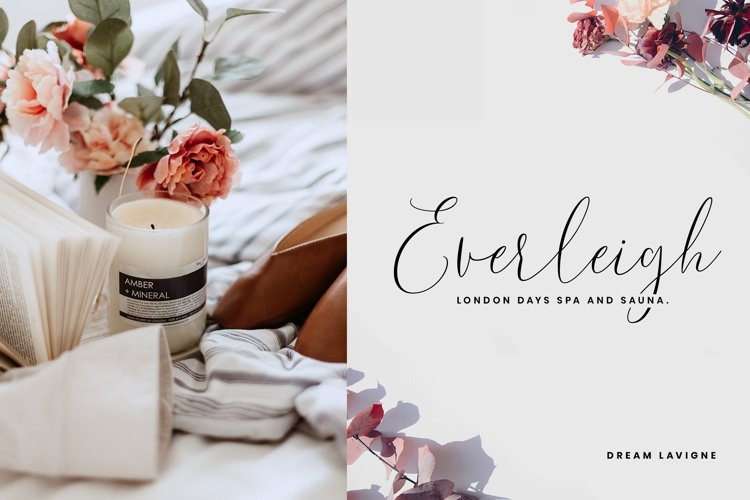
Dream Lavigne Font
Dream Lavigne Script Font
This font is a chic and natural calligraphy with natural impression. Made from font designer named sizimon. It is elegant, feminine, fashionable and friendly. Trendy and feminine style. Our font will be advocates for purposes such as wedding invitations, thank you cards, quotes, greeting cards, logos, business cards, party, graduation, birthday, gathering, etc.